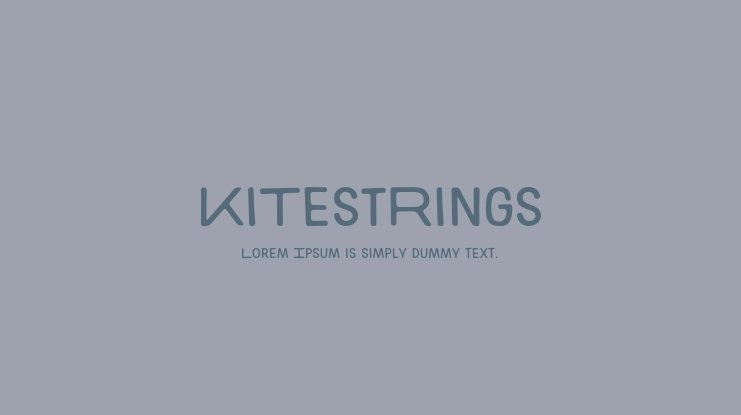
Kitestrings Font
The Kitestrings font family is a cozy all-caps sans font family with elongated uppercase letters so you can mix and match as you please to create text with that custom, variable width style. It comes with two weights, regular and bold, and features imperfect outlines with soft, rounded corners, giving it a down-to-earth vibe.
It’s perfect for unique logos and branding and easy to customize. Use the uppercase, lowercase, or a mix of the two for totally different looks!